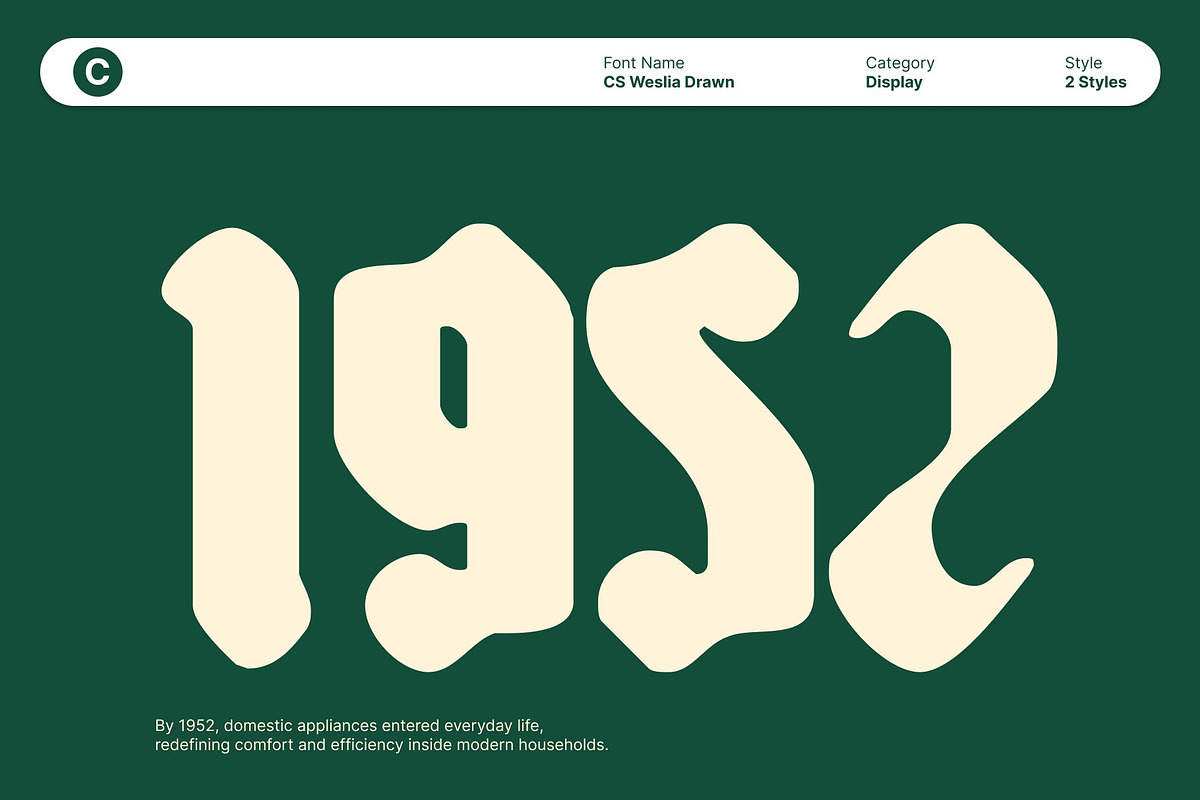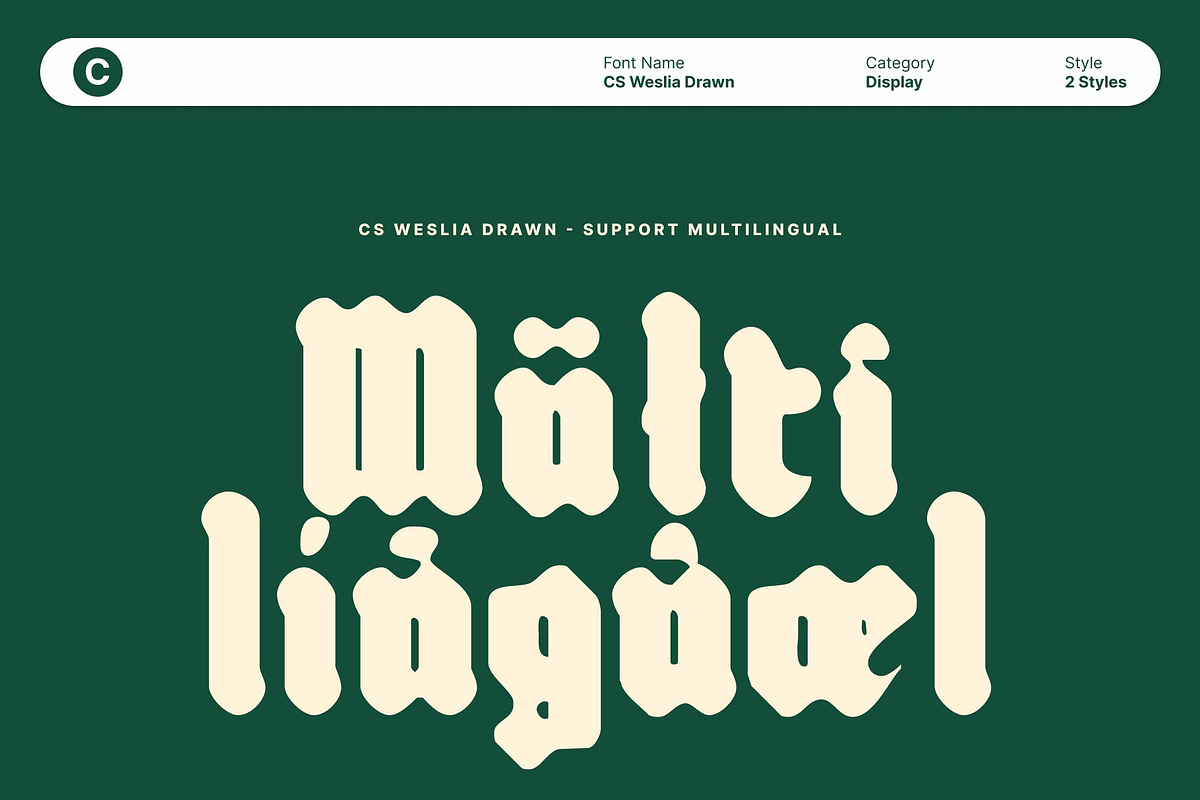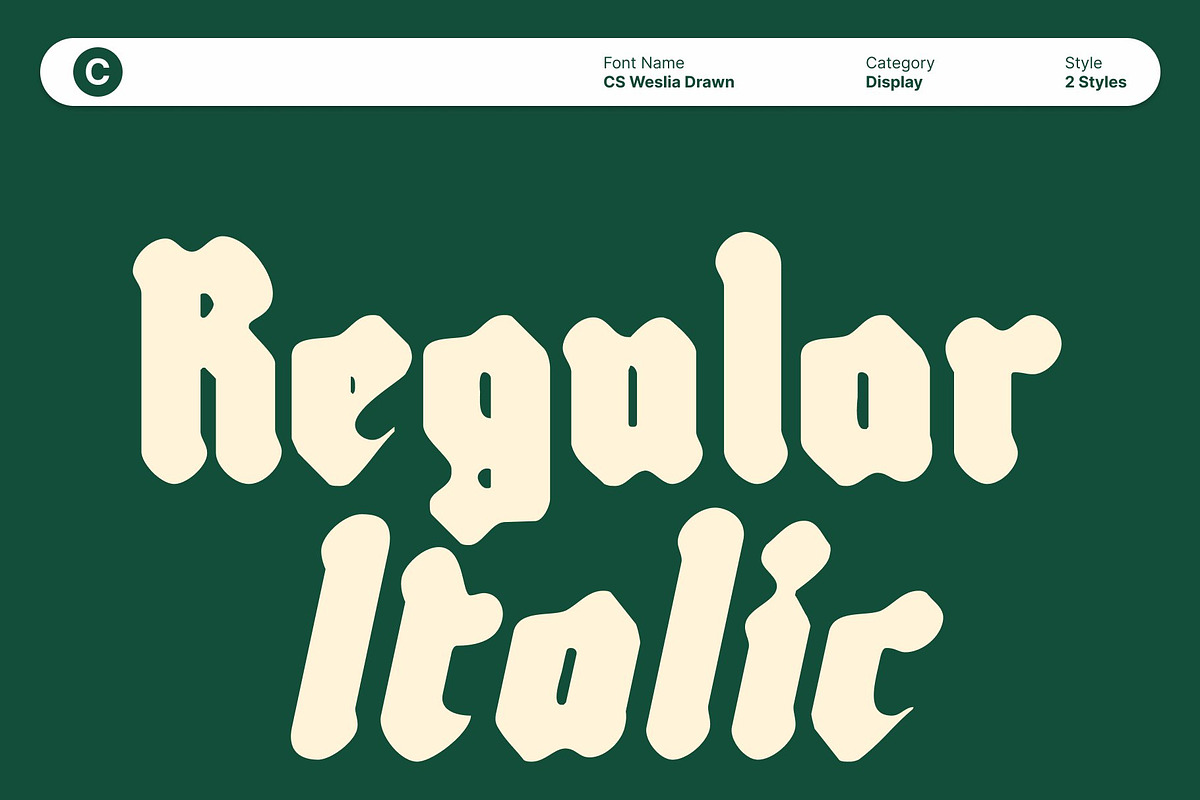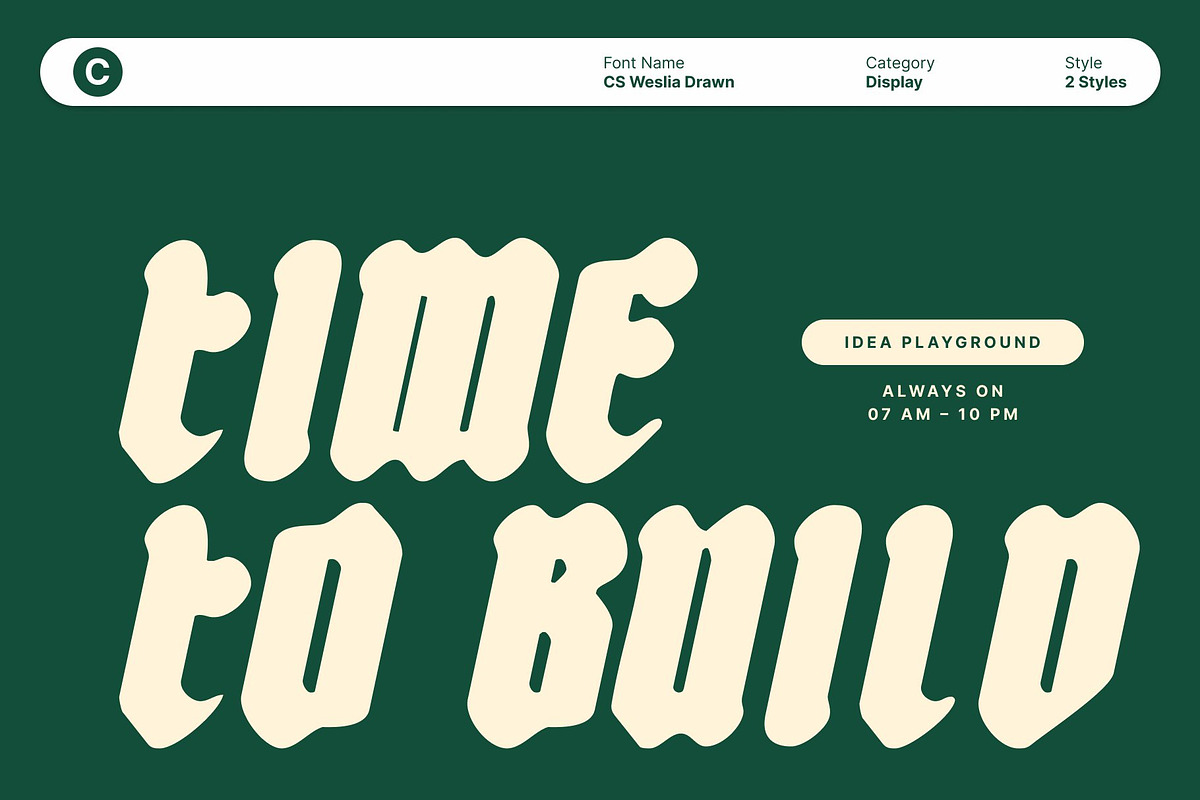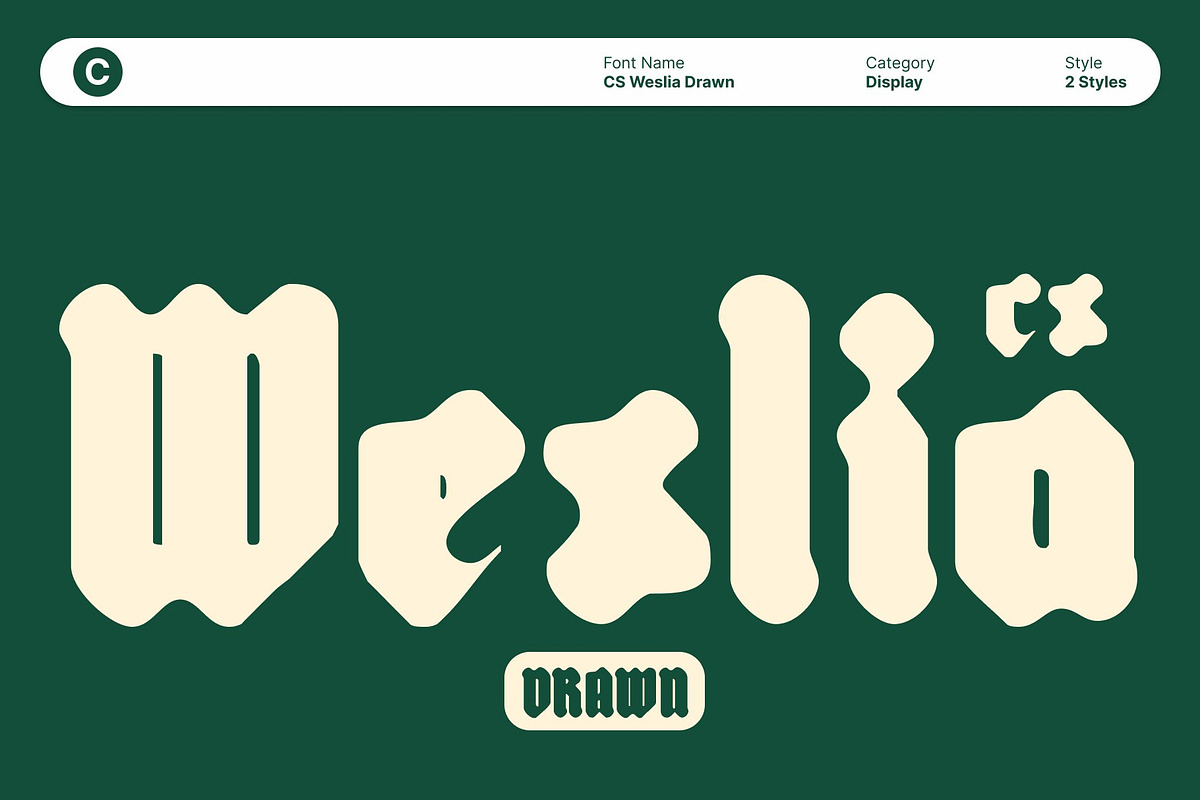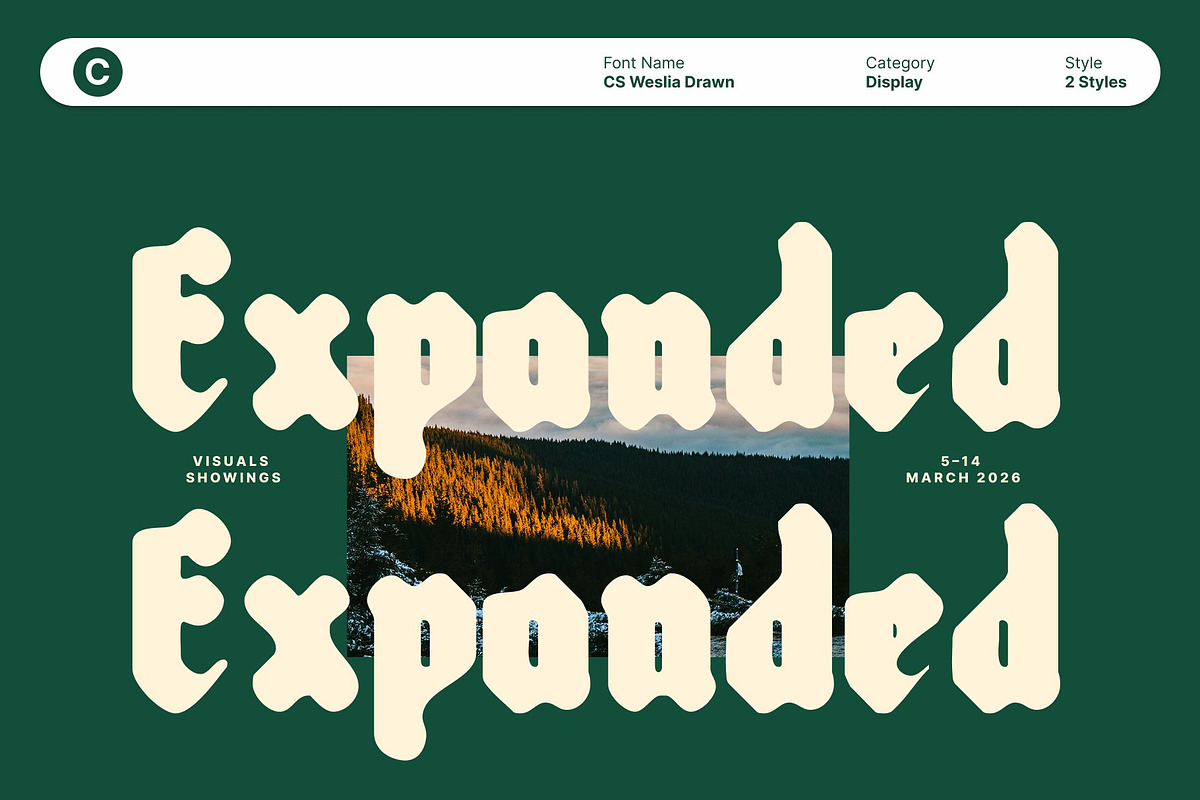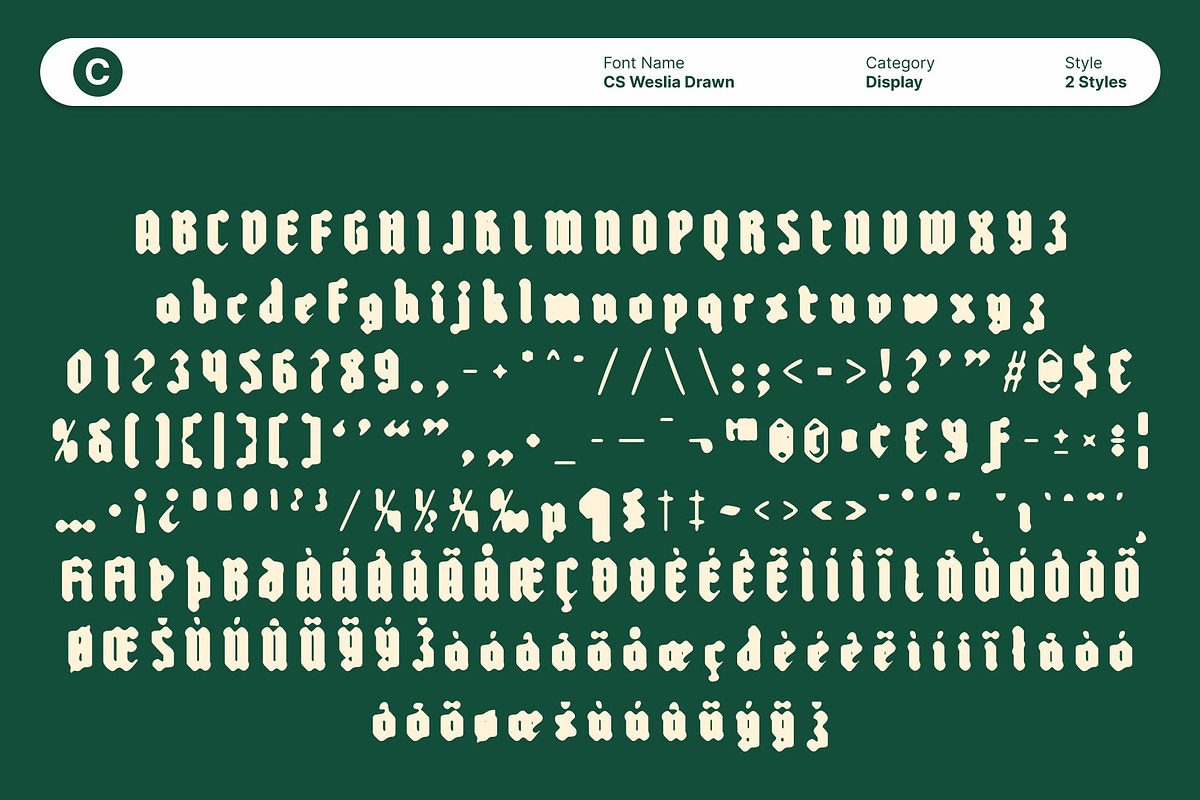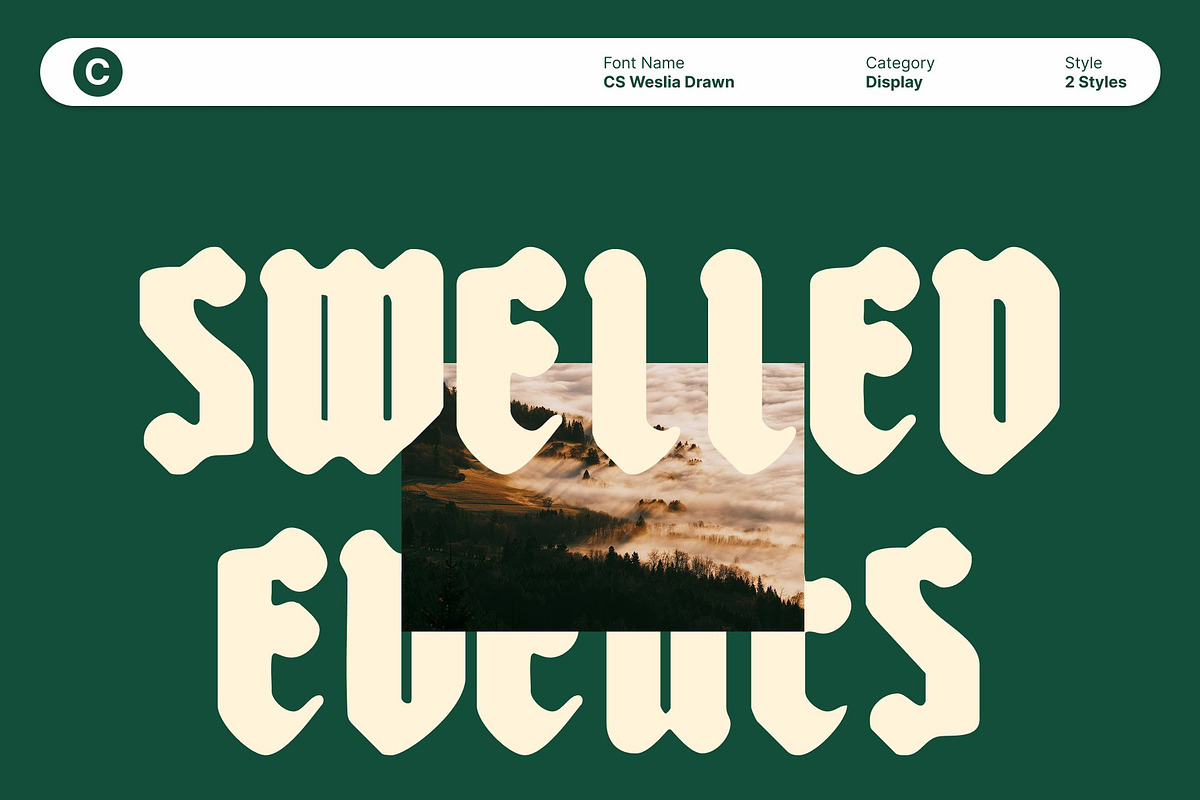
CS Weslia Drawn
CS Weslia Drawn – Modern Gothic Font with Hand-Drawn Drama
Gothic Display Font with Contemporary Structure This is a striking gothic display font that blends the sharp intensity of classic gothic typography with clean, modern proportions. Its tall letterforms, dramatic vertical emphasis, and refined flourishes preserve the heritage of gothic design while introducing a more structured and contemporary feel. This balance makes the font bold and expressive without feeling overly ornate or outdated.
Mysterious Elegance with Hand-Drawn Texture Enhanced by a drawn effect, gains an artistic, handcrafted character that adds depth and individuality. Subtle textures and organic imperfections soften the rigid gothic forms, creating a refined yet mysterious atmosphere. The result is a font that feels dramatic and elegant at the same time powerful, expressive, and visually captivating.
Designed for Bold and Distinctive Visuals This is ideal for projects that demand a strong, memorable identity. It performs beautifully in dark posters, album covers, gothic fashion editorials, event invitations, and expressive branding. The combination of sharp forms and artistic texture ensures each design feels intentional, atmospheric, and full of personality.
Timeless Gothic Appeal for Modern Design By merging traditional gothic influence with modern structure and hand-drawn artistry, offers timeless appeal with contemporary relevance. It is perfect for designers seeking typography that communicates mystery, strength, and elegance bringing dramatic presence and refined character to both print and digital creative projects.